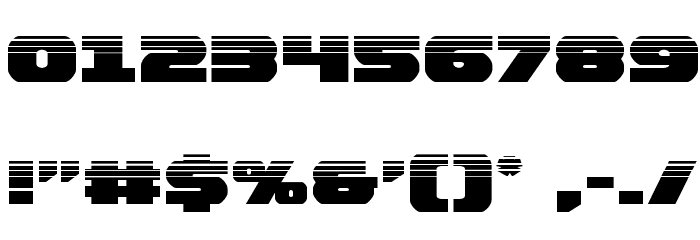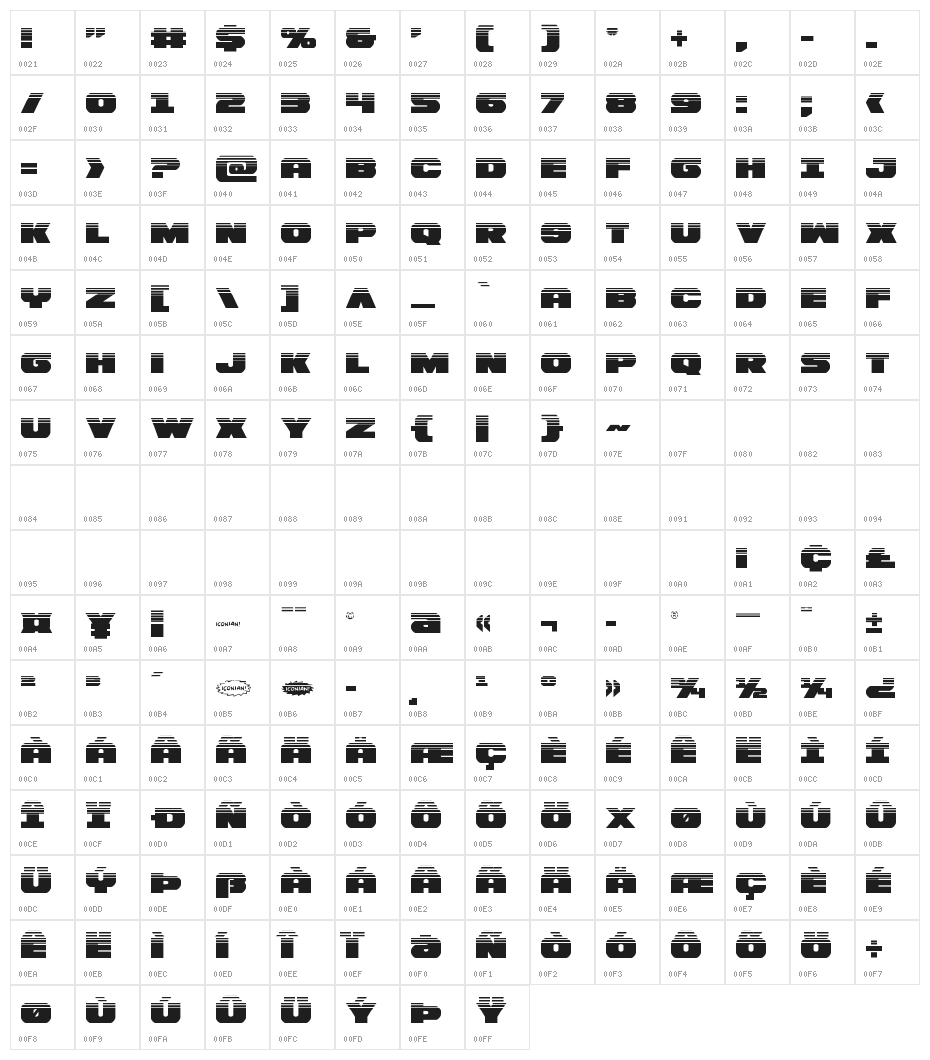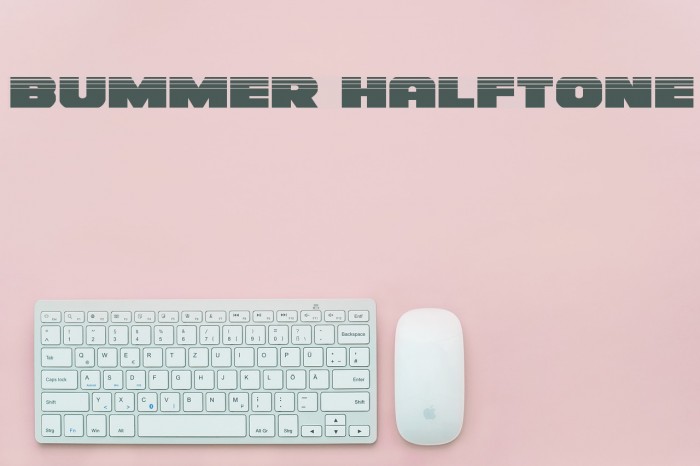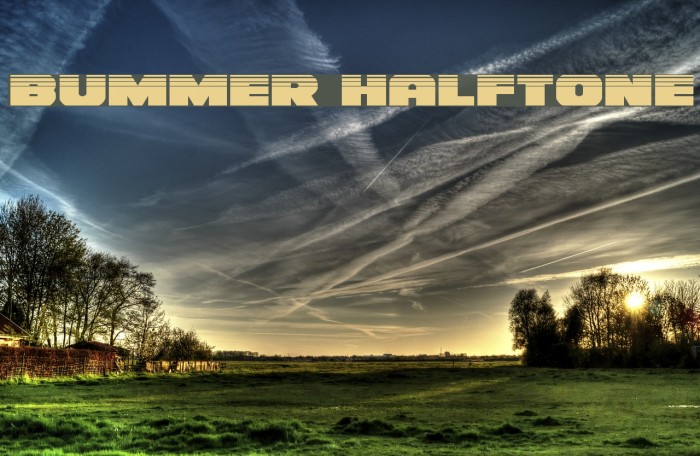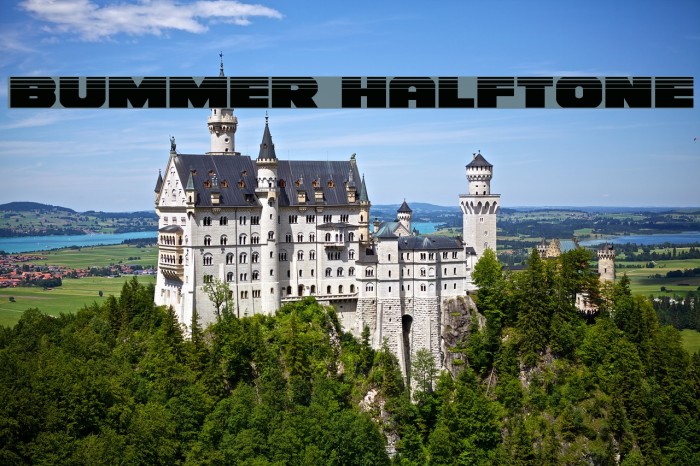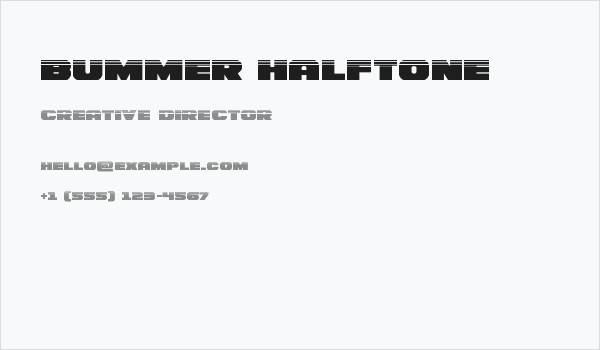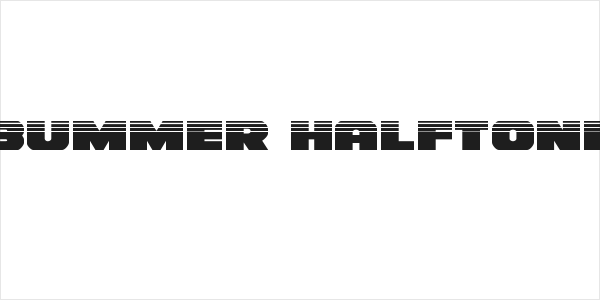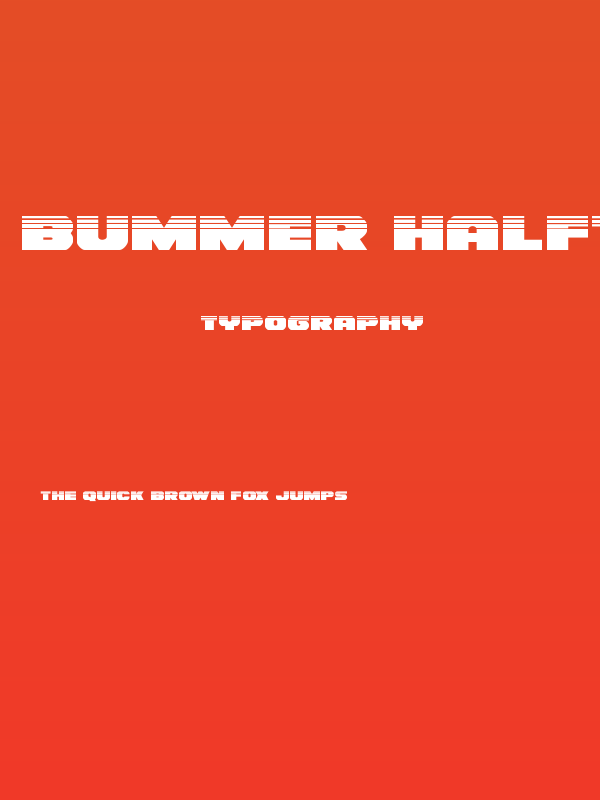
Bummer Halftone Font
Bummer Halftone Description
This font features a bold, geometric design with a halftone effect that gives it a unique, futuristic appearance. The characters are constructed with thick, blocky shapes and horizontal lines that create a sense of movement and depth. The uppercase letters are particularly striking, with a strong presence that commands attention. The numbers and special characters maintain the same bold style, ensuring consistency across all elements. This font is ideal for projects that require a modern and dynamic look, such as posters, advertisements, and digital media.